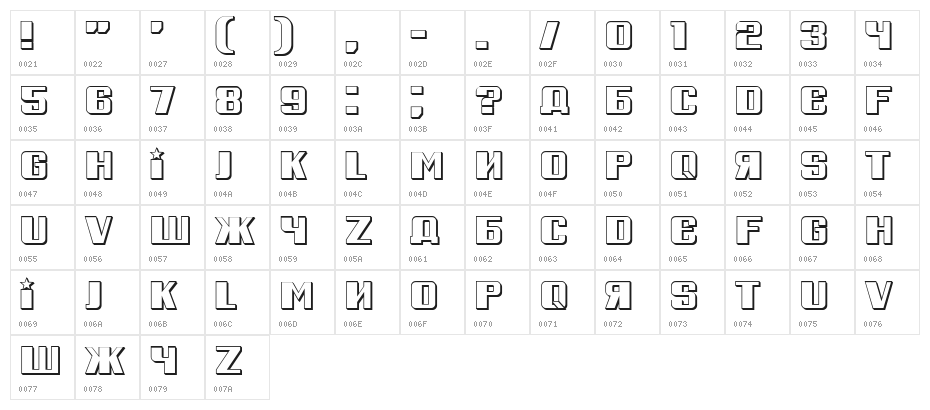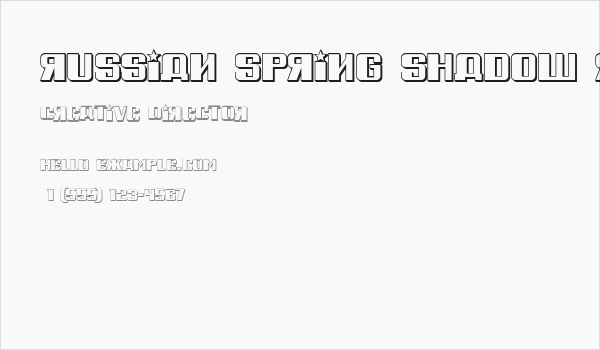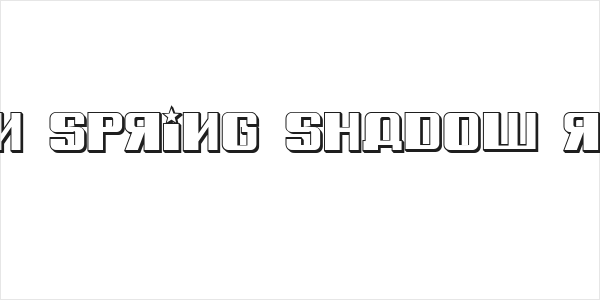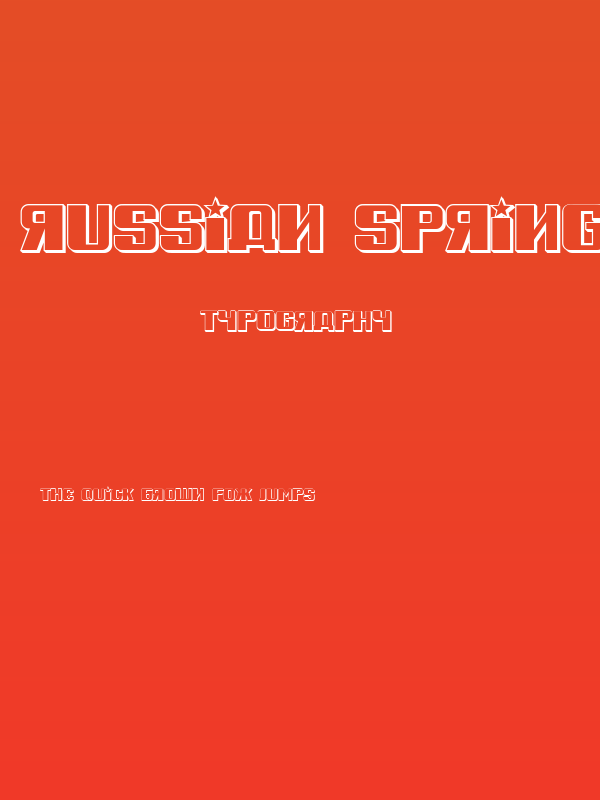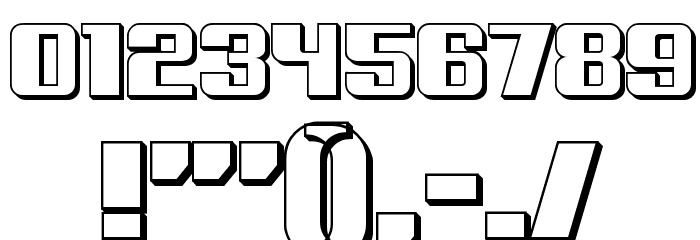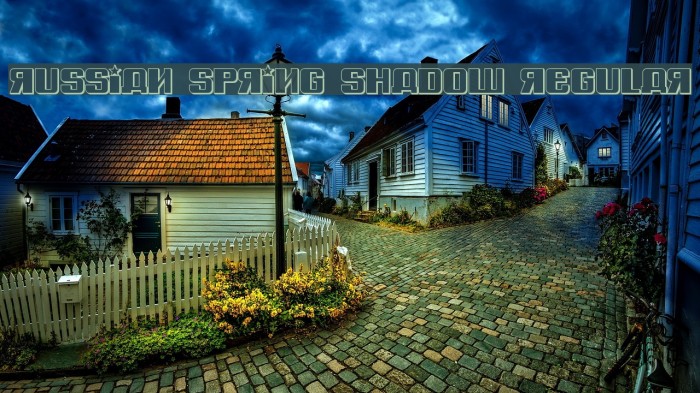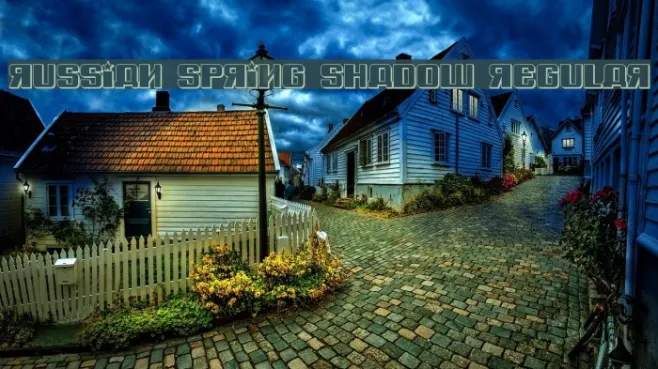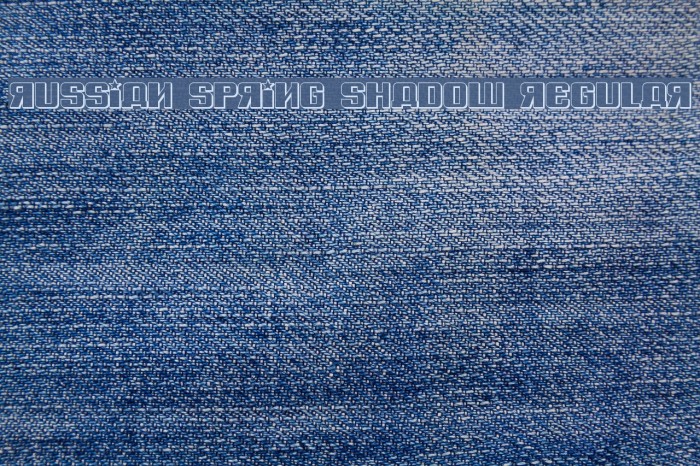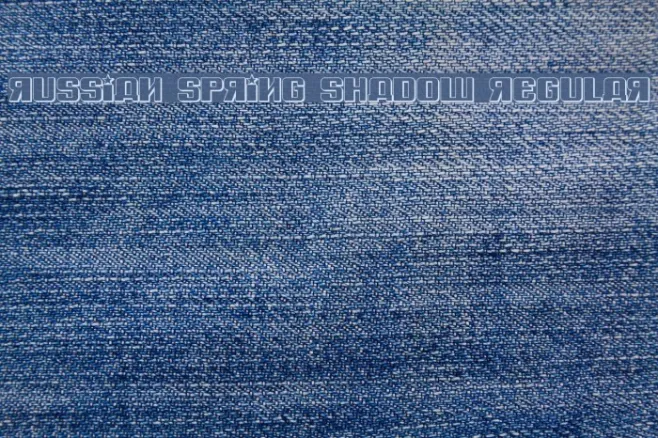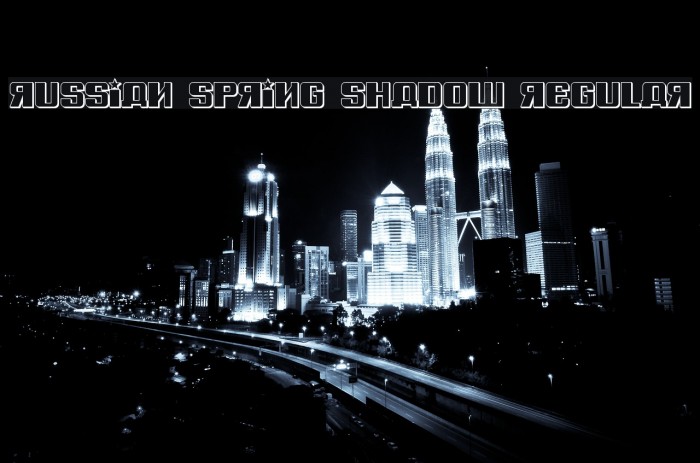
Russian Spring Shadow Regular Font
Russian Spring Shadow Regular Description
This font features a bold, geometric design with a distinct shadow effect that gives it a three-dimensional appearance. The uppercase letters are structured with sharp angles and clean lines, while the inclusion of a star within some characters adds a unique decorative touch. The numbers and special characters maintain the same bold and shadowed style, ensuring consistency across all elements. This font's strong visual impact makes it ideal for attention-grabbing designs.
| Proposed Projects | Ideal for posters, headlines, logos, and any design requiring a strong visual impact. |